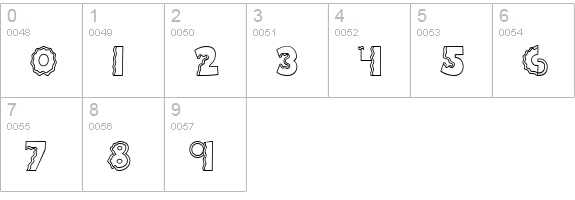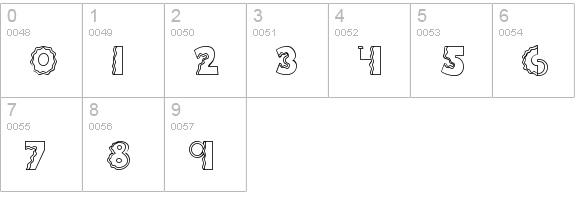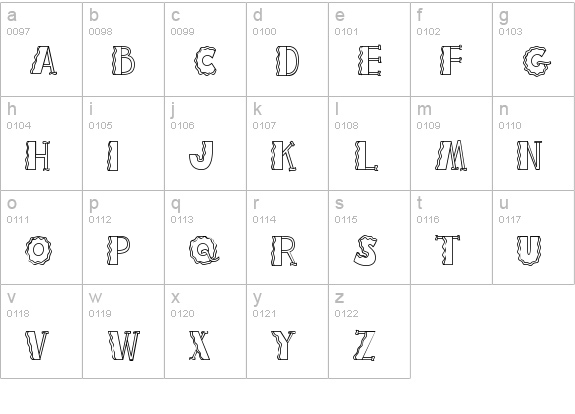
CK Wavey Font Details
Introducing CK Wavey font, a whimsical and playful typeface that is sure to add a fun touch to your designs. With its flowing lines and unique characters, CK Wavey font brings a sense of energy and movement to any project. This free font is perfect for creating eye-catching headlines, posters, invitations, and more. Best of all, CK Wavey font is freely available to download at FontsMarket.com. So go ahead and unleash your creativity with this delightful and dynamic typeface. Whether you're working on a project for print or digital media, CK Wavey font is sure to make a bold statement and captivate your audience. Download it today and let your designs stand out from the crowd!